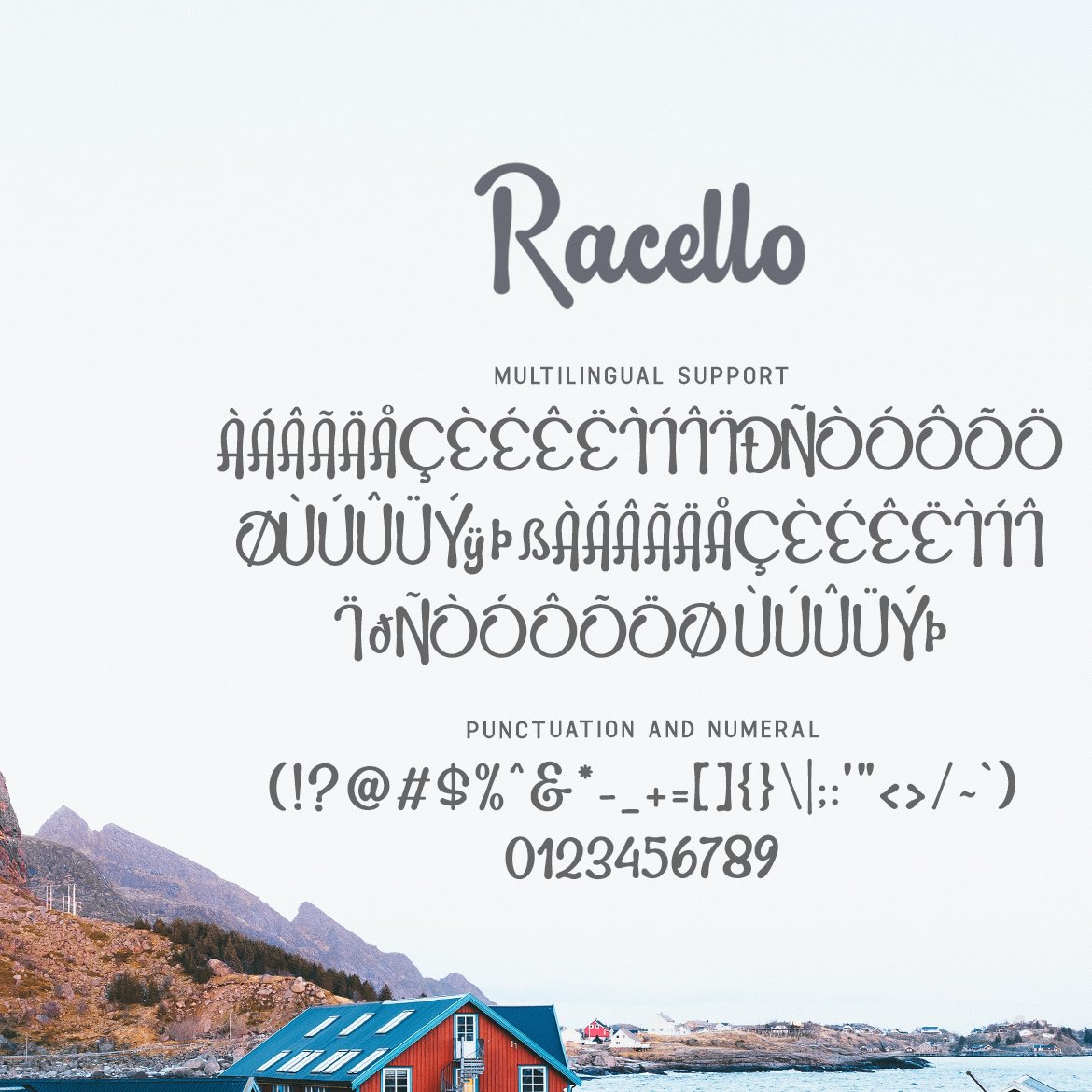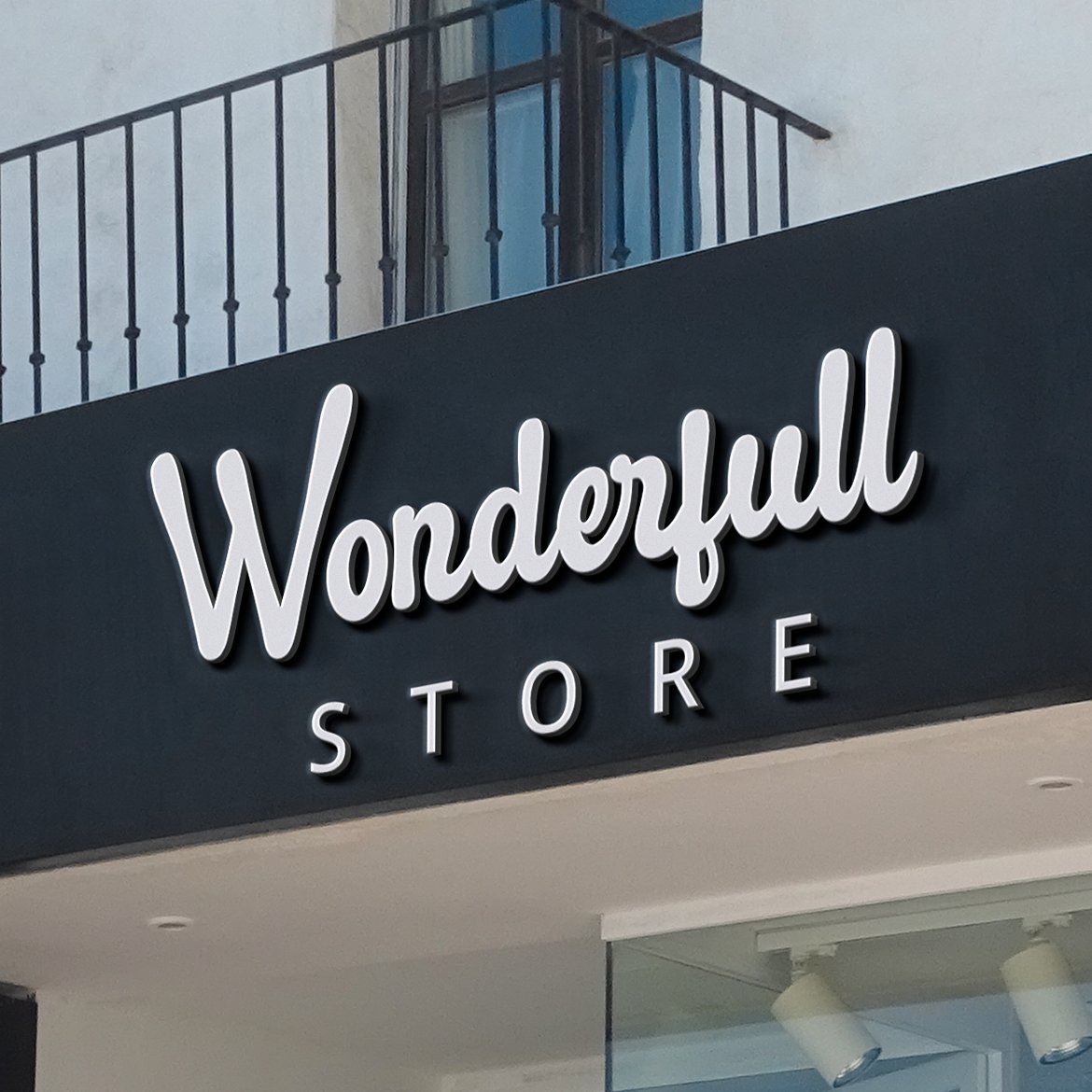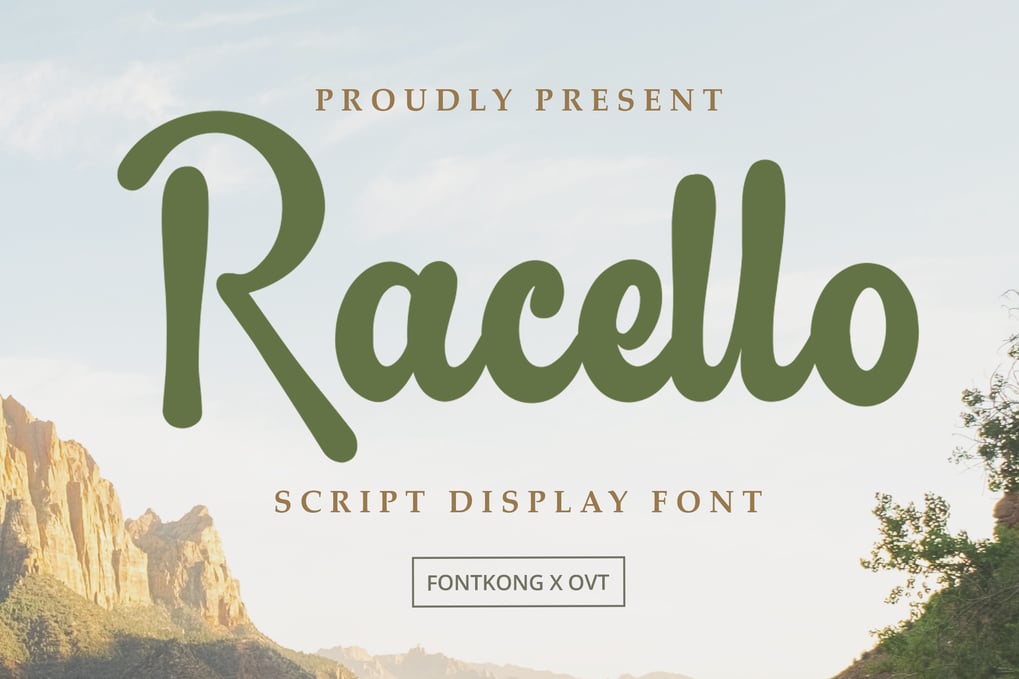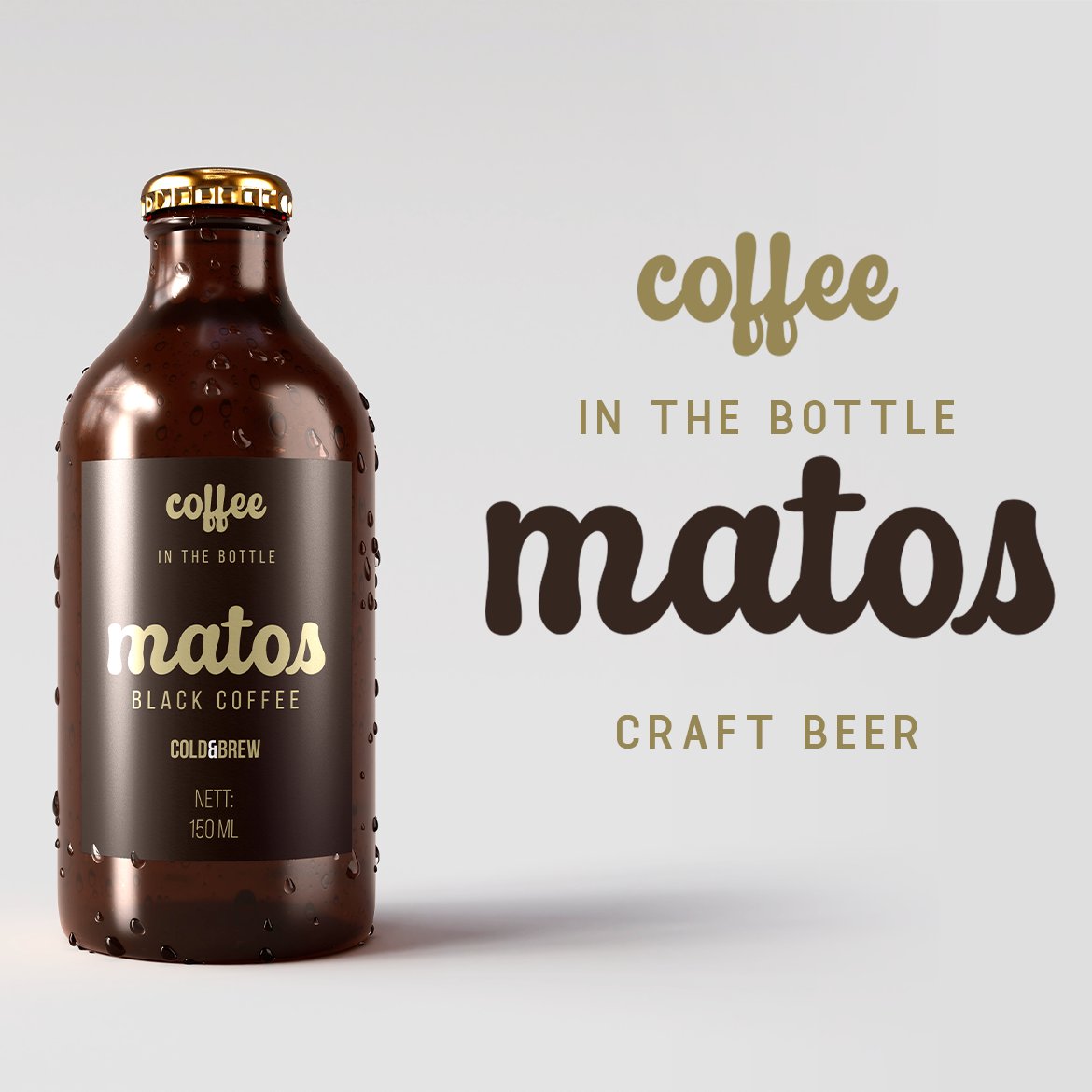
Racello – Script Display Font
Ideal for branding, packaging, invitations, signage, and editorial designs, Racello’s flowing script evokes a sense of elegance and refinement. Each letter is meticulously crafted to maintain readability and visual appeal, making your designs both captivating and professional.